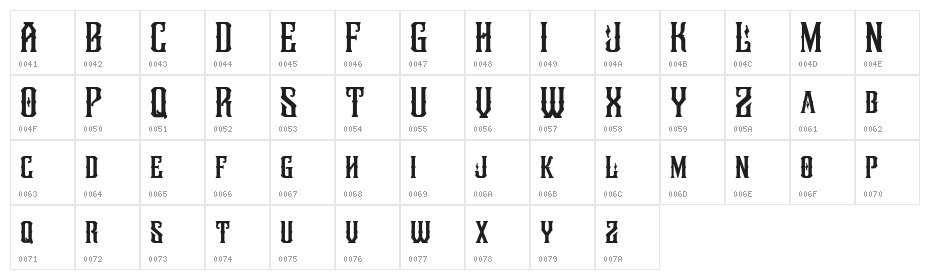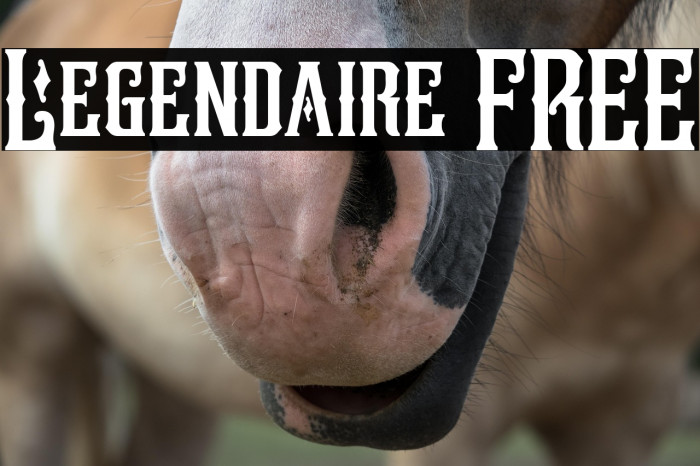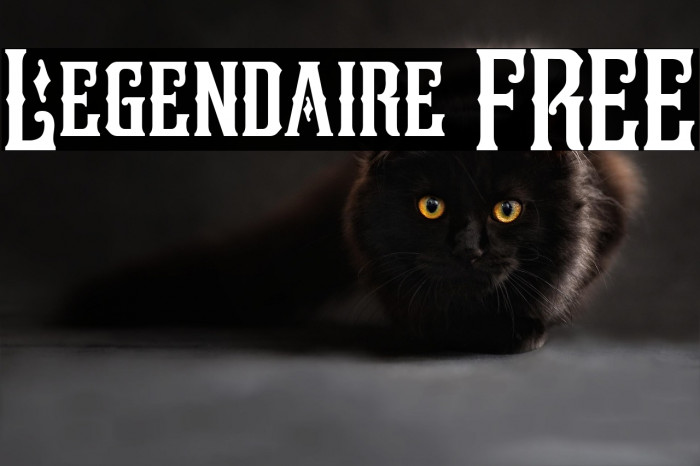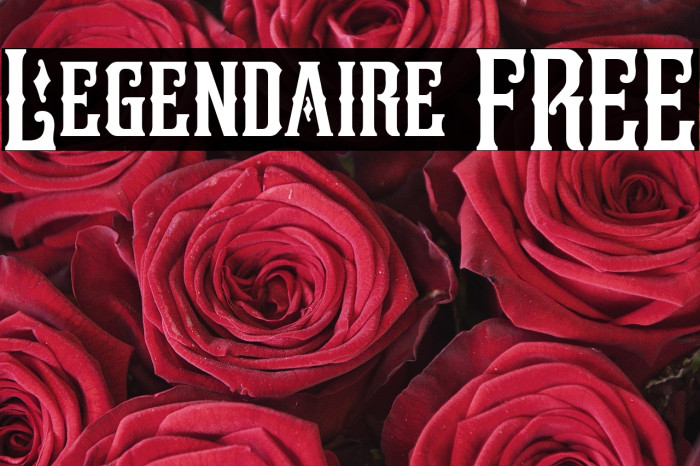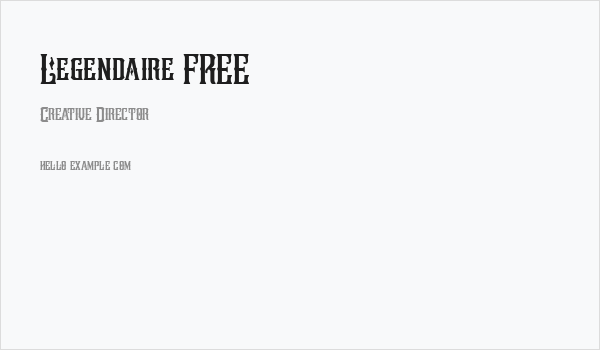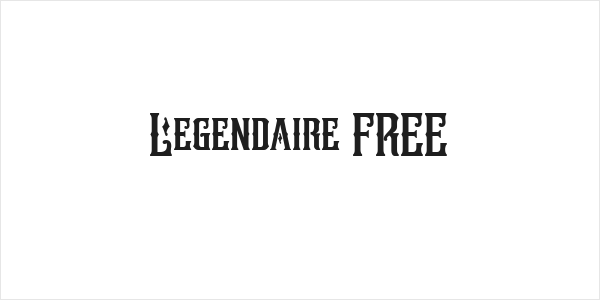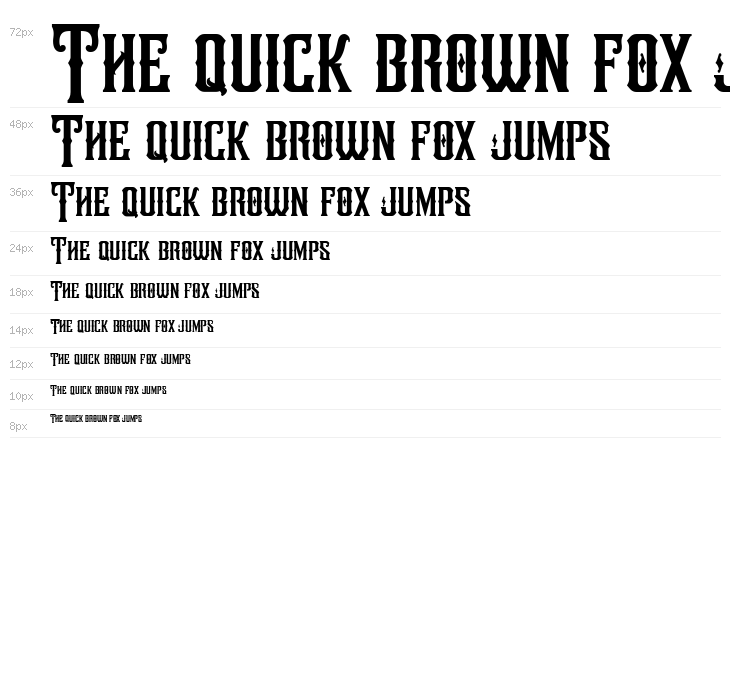
Legendaire FREE Font
Legendaire FREE Description
This font features a bold and striking design with a distinct medieval or gothic influence. The characters are adorned with sharp, angular edges and intricate details, giving them a dramatic and ornamental appearance. The uppercase letters are particularly elaborate, with unique embellishments that enhance their visual impact. The overall aesthetic is both vintage and decorative, making it suitable for projects that require a touch of historical or fantasy flair. The font's strong presence and intricate design make it ideal for use in headlines, posters, or any creative work that seeks to capture attention with a bold statement.
| Overall Style | Vintage, Decorative |
| Proposed Projects | Ideal for fantasy-themed designs, medieval event posters, book covers, and branding that requires a historical or dramatic touch. |